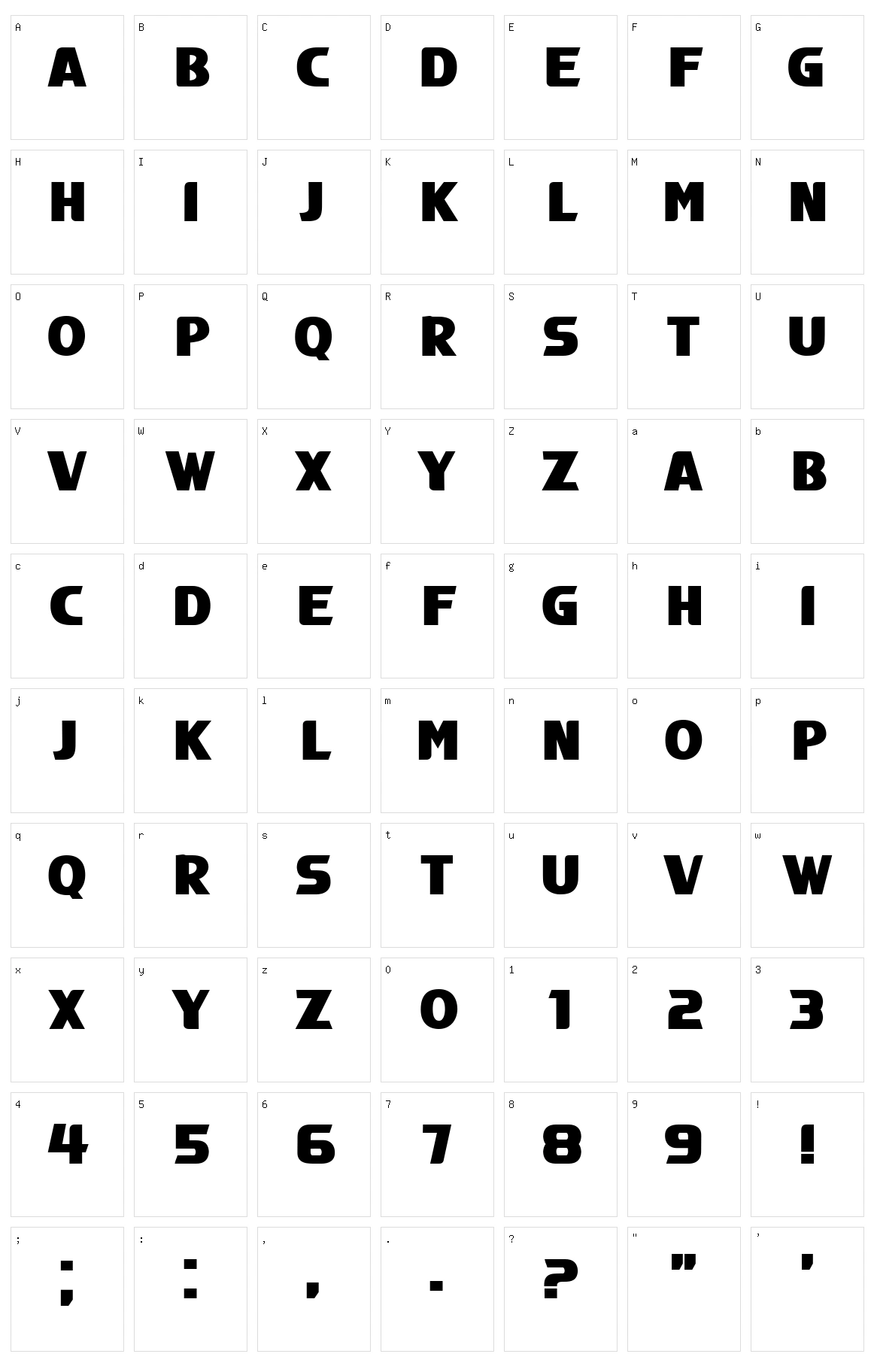
The free font Magistros is carefully designed by Vladimir Nikolic, showcasing a thoughtful balance of creativity and usability and falls under the Sans serif font style. When you download the ZIP file, it contains only 92.7 KB of font files, making it lightweight and quick to download. Please review the license details below to understand permitted usage and distribution rights. If license information is not available, we recommend using this font for personal projects only or contacting the author directly for commercial usage permissions.